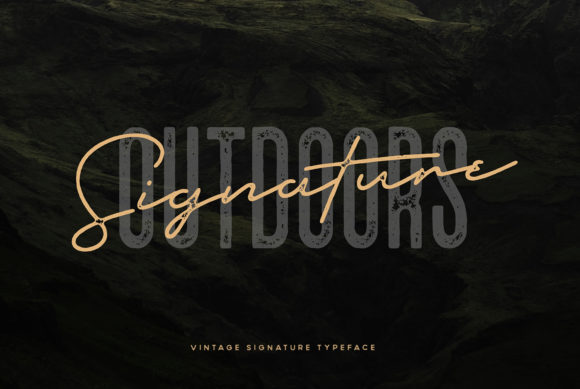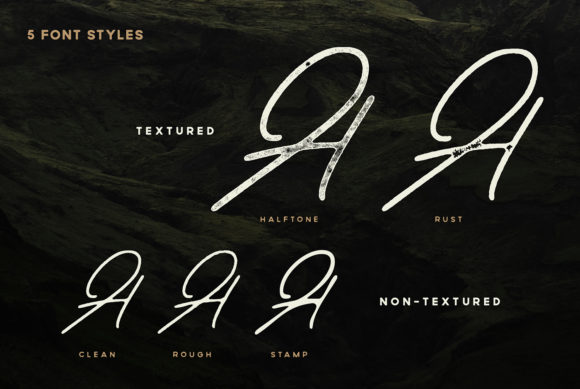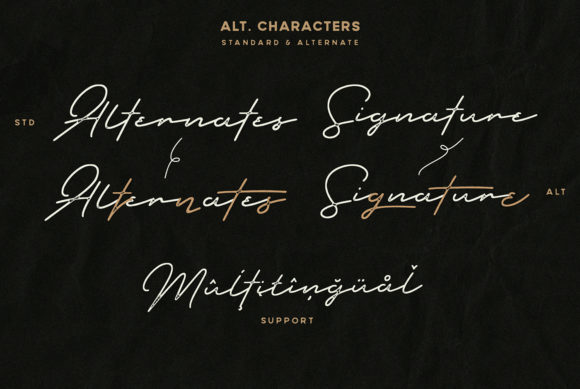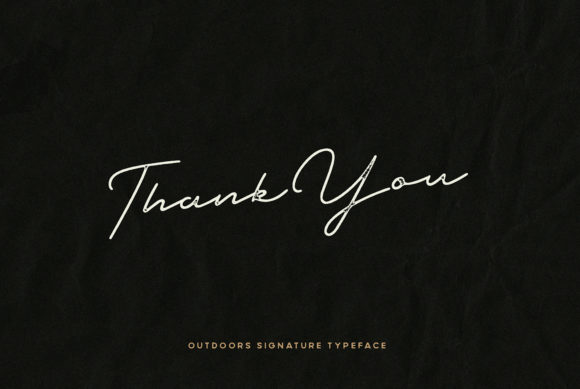
About Outdoors Signature Font
Outdoors Signature is a beautiful and vintage script font. It comes in 5 styles: Outdoors Clean, Outdoors Signature Rough, Outdoors Signature Rust, Outdoors Halftone and Outdoors Signature Stamp.
Combine these styles and create outstanding crafting projects. It will elevate a wide range of design projects to the highest level, be it branding, headings, wedding designs, invitations, signatures, logos, labels, and much more!